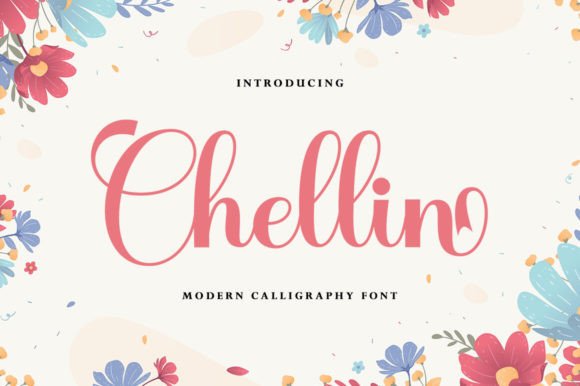
Chellin Font: A Elegant Calligraphic Script Font for Creative Projects
The Chellin font is a beautiful calligraphic script font that has been designed with exquisite character changes, blending classic decorative copper script with a modern twist. This elegant font is perfect for creative projects that require a touch of sophistication and glamour. With its smooth, clean, and feminine design, Chellin is an excellent choice for a wide range of applications, from formal invitations to fashion branding.
Key Features of Chellin Font
- Calligraphic Script Design: Chellin boasts a classic calligraphic script design with a modern twist, making it perfect for projects that require a touch of elegance.
- Exquisite Character Changes: The font features exquisite character changes, providing a unique and stylish look.
- Smooth and Clean Design: Chellin’s smooth and clean design makes it easy to read and perfect for use in a variety of applications.
- Feminine and Sensual: The font’s feminine and sensual design makes it perfect for projects that require a touch of glamour.
- High Detail for Elegant Style: Chellin has been designed with high detail, providing an elegant style that is perfect for formal applications.
Usage Examples for Chellin Font
Chellin is a versatile font that can be used in a wide range of applications, including:
- Invitations: Chellin is perfect for formal invitations, such as wedding invitations, birthday invitations, and graduation invitations.
- Labels and Packaging: The font’s elegant design makes it perfect for use in labels and packaging for luxury brands.
- Restaurant Menus: Chellin’s classic design makes it perfect for use in restaurant menus, particularly for fine dining establishments.
- Logos and Branding: The font’s unique design makes it perfect for use in logos and branding for fashion, beauty, and lifestyle brands.
- Stationery and Novels: Chellin’s elegant design makes it perfect for use in stationery, novels, and other literary works.
- Magazines and Books: The font’s classic design makes it perfect for use in magazines and books, particularly for luxury and lifestyle publications.
- Greeting and Wedding Cards: Chellin is perfect for use in greeting and wedding cards, adding a touch of elegance and sophistication.
Glyph Alternatives and Language Support
Chellin features over 380 glyph alternative characters, providing a wide range of options for creative projects. The font also supports multiple languages, making it perfect for use in international projects.
The font’s OpenType features include alternative styles and elegant binding, which work automatically to provide a beautiful and elegant design. However, manual access to these features is also available, allowing designers to combine glyph variations for the best results.
Benefits of Using Chellin Font
- Elegant Design: Chellin’s elegant design makes it perfect for formal applications and luxury brands.
- Versatility: The font’s versatility makes it perfect for use in a wide range of applications, from invitations to logos and branding.
- Easy to Read: Chellin’s smooth and clean design makes it easy to read, even at small sizes.
- Feminine and Sensual: The font’s feminine and sensual design makes it perfect for projects that require a touch of glamour.
- High Quality: Chellin is a high-quality font, designed with attention to detail and a focus on elegance and sophistication.
In conclusion, Chellin is a beautiful calligraphic script font that is perfect for creative projects that require a touch of elegance and sophistication. With its exquisite character changes, smooth and clean design, and feminine and sensual style, Chellin is an excellent choice for a wide range of applications. The font’s versatility, easy readability, and high-quality design make it a valuable asset for designers and brands looking to add a touch of glamour to their projects.